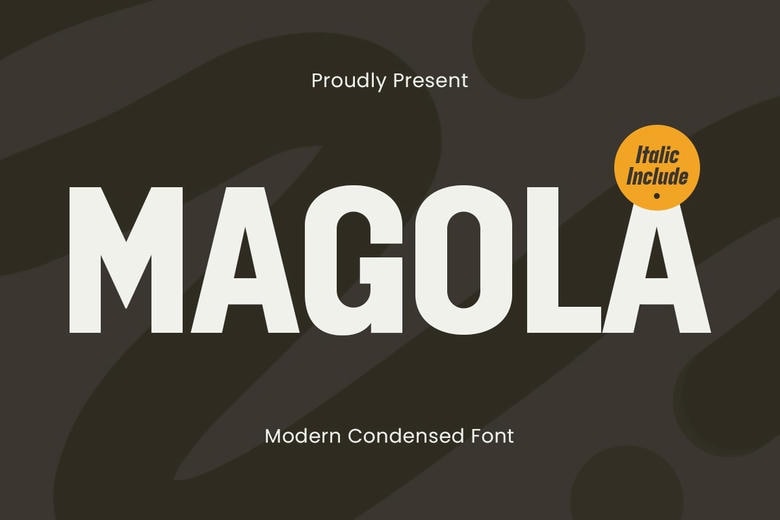
Magola Font
Magola is another evenly condensed contemporary type face with element of boldness and minimalistic design. This font type has been primarily intended to achieve elegant headlines, branding and editorial layouts while it does not compromise the desirable functionality and readability characteristic for contemporary typeface.
Magola font has concise letters with a harmonized width appropriate for fashion, luxury, signages, advertisements, and other printing materials. Its typeface makes it look more professional and clean, thus suitable for formal and corporate designs and other professional related designs. Regardless of the specific purpose that is to be served – a clear signal, an emphasis on a particular section, or a shift of the layout – Magola font is ideal for each of those.
Magola Sans Serif Font